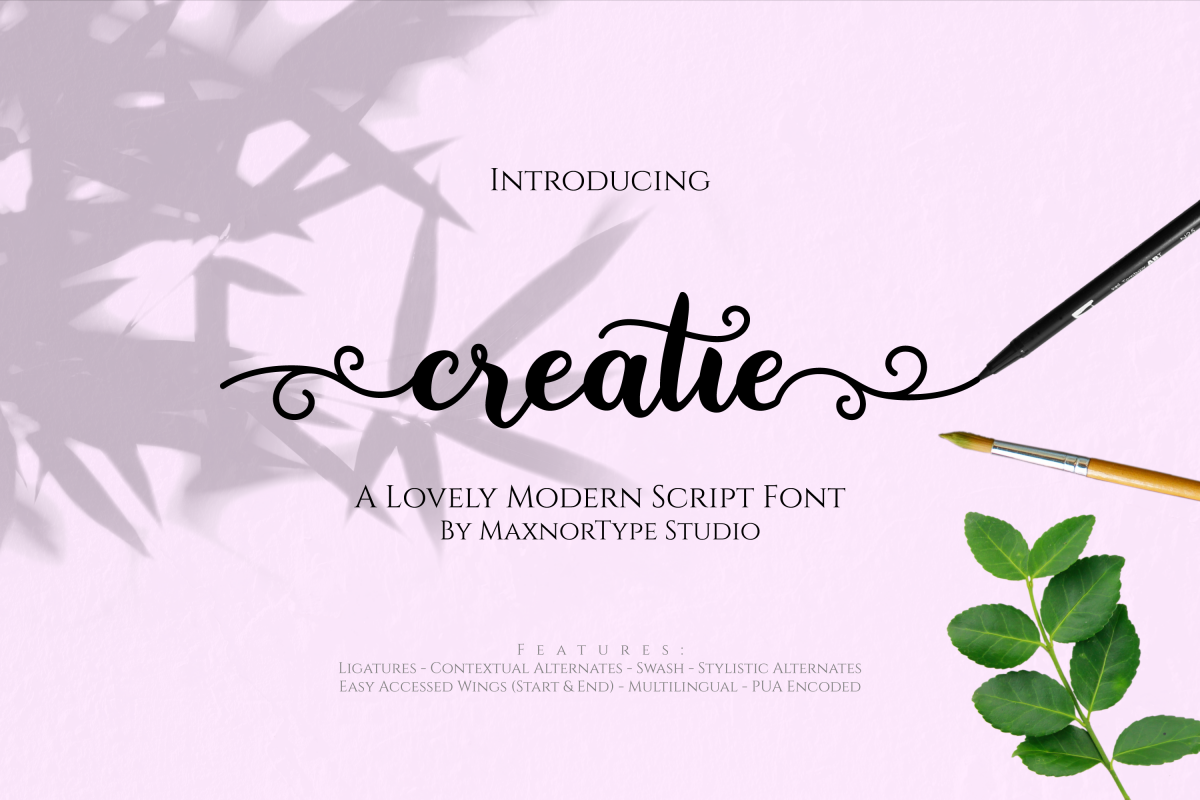
Creatie - A Lovely Modern Script Font
Say hello to summer with Creatie, the lovely modern script font! This beautiful hand-lettered script font is perfect for styling logos, stationery, social media, websites and much more!
Creatie was created with multilingual support, ligatures, contextual alternates, stylistic alternates, swash and wings, allowing you to create a great look to your projects. These features work well in programs that support OpenType features, such as Adobe Indesign, Illustrator, and Photoshop.
The start wings and end wings use contextual alternates and ligature features, allowing you to access them easily and change the wing style simply by changing the number on the end of the wing formula.
The multilingual characters included are as follows:
À Á Â Ä Ã Å Æ Ç Ð È É Ê Ë Ì Í Î Ï Ł Ñ Ò Ó Ô Ö Õ Ø Œ þ Š Ù Ú Û Ü Ý Ÿ Ž
à á â ä ã å æ ç ð è é ê ë ì í î ï ı ł ñ ò ó ô ö õ ø œ Þ š ß ù ú û ü ý ÿ ž